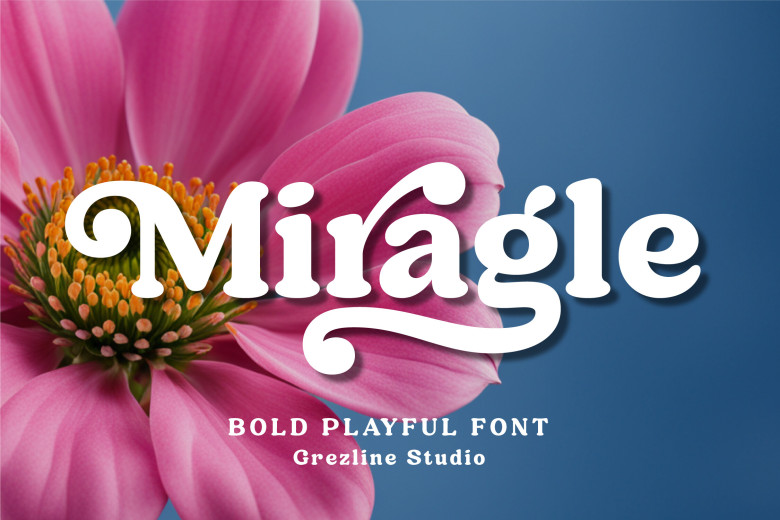
Miragle Font
Miragle is an enjoyable and trendy display typeface which effortlessly marries nostalgia with modernity. Its energetic letterforms evoke vintage appeal while adding modern sophistication. Perfect for projects requiring retro charm, Miragle will add joyous character to your designs!
Miragle font is ideal for posters, logos, packaging designs and banners requiring visually appealing and distinguishing elements.
Miragle Display Font